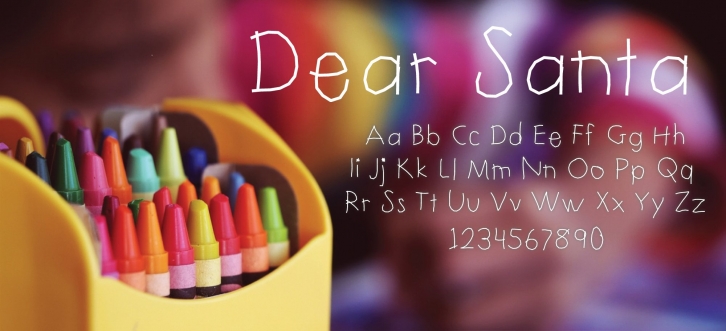
Dear Santa is a font meant to capture the awkward yet determined quality of a child's handwriting.
Possible Uses:
Writing Christmas notes to your child's teacher when said child refuses.
Leaving suggestions for improvement for your significant other under the guise of your child writing them.
Forging notes of gratitude and adoration from your child to show your friends how good of a parent you are.